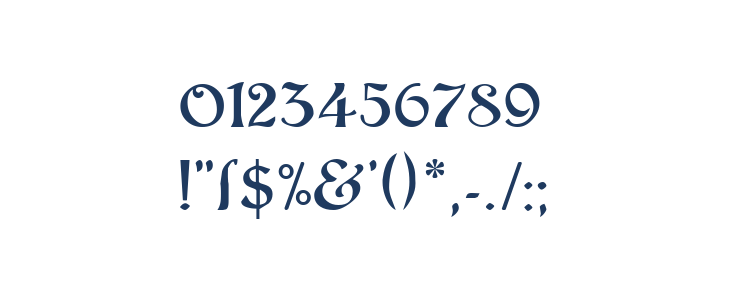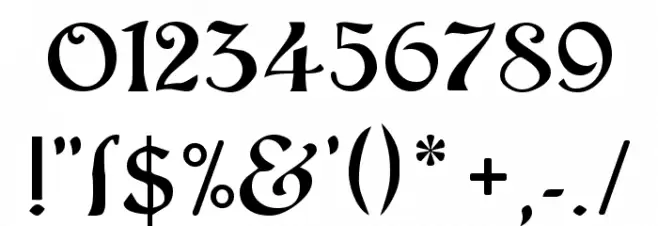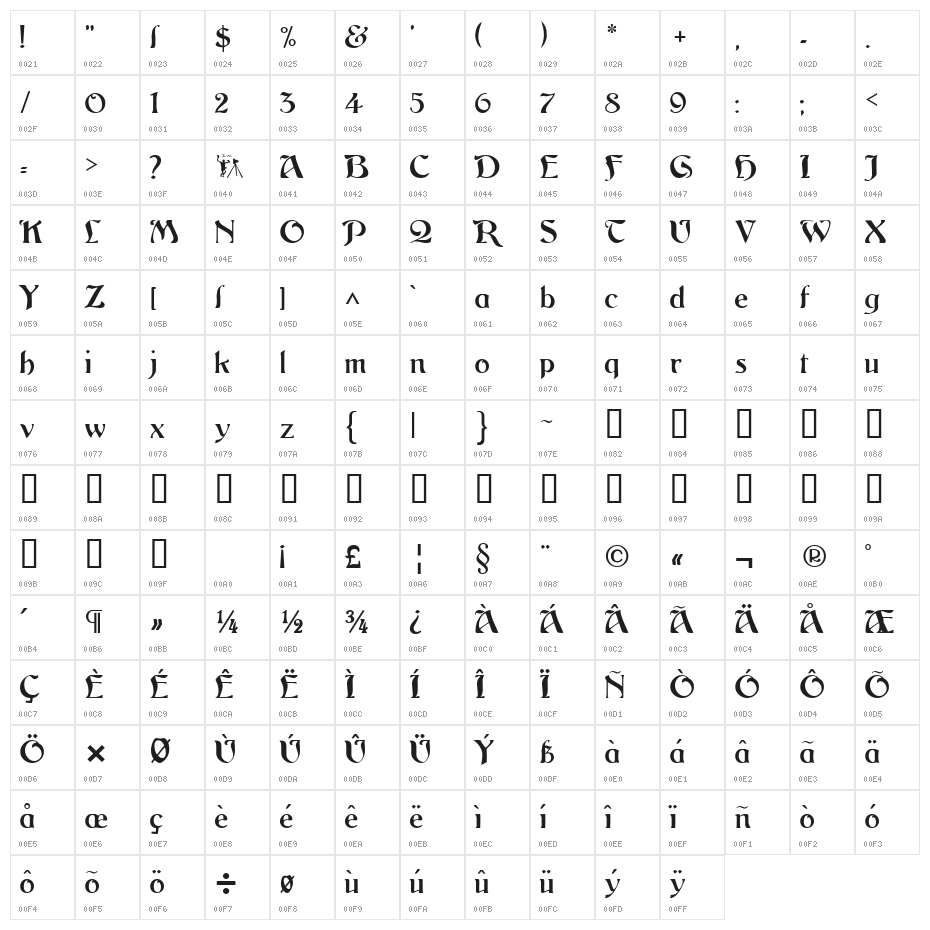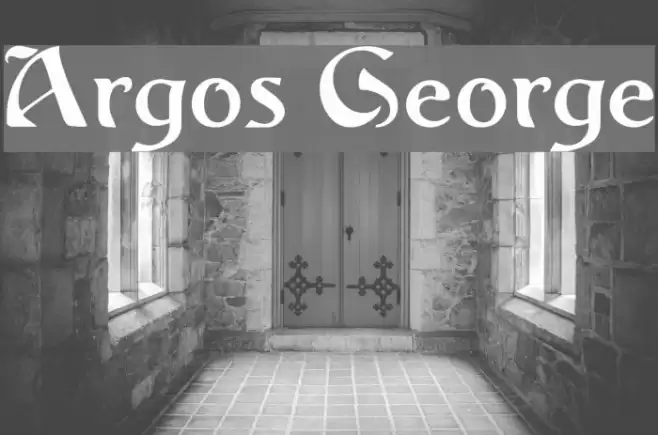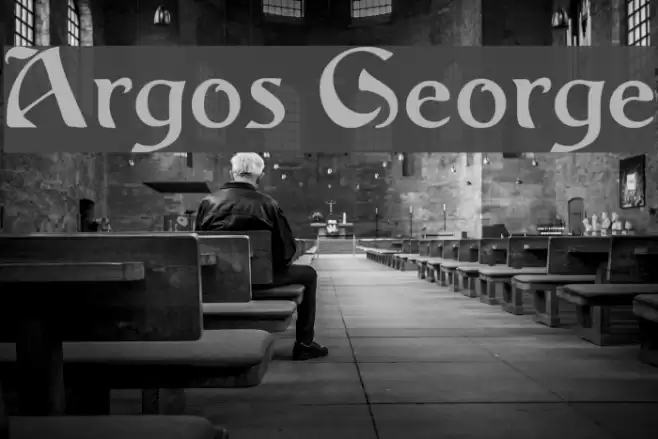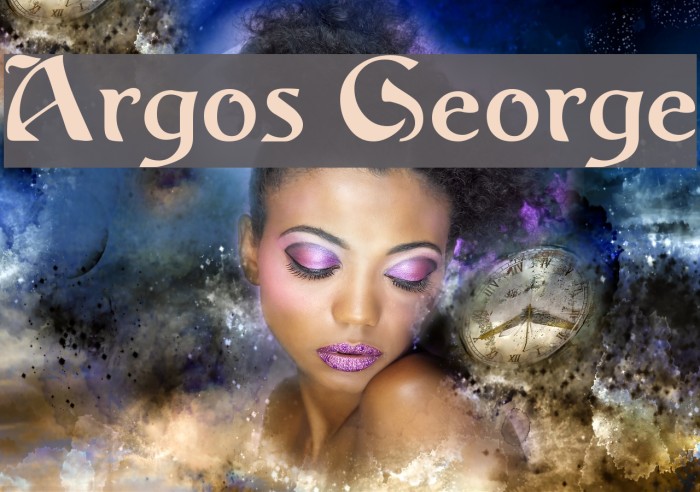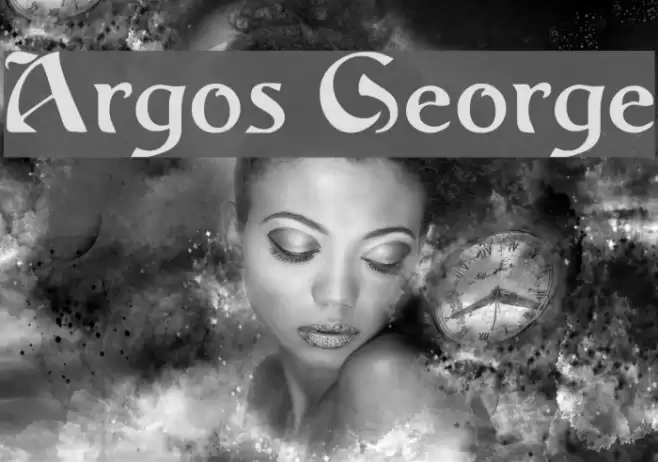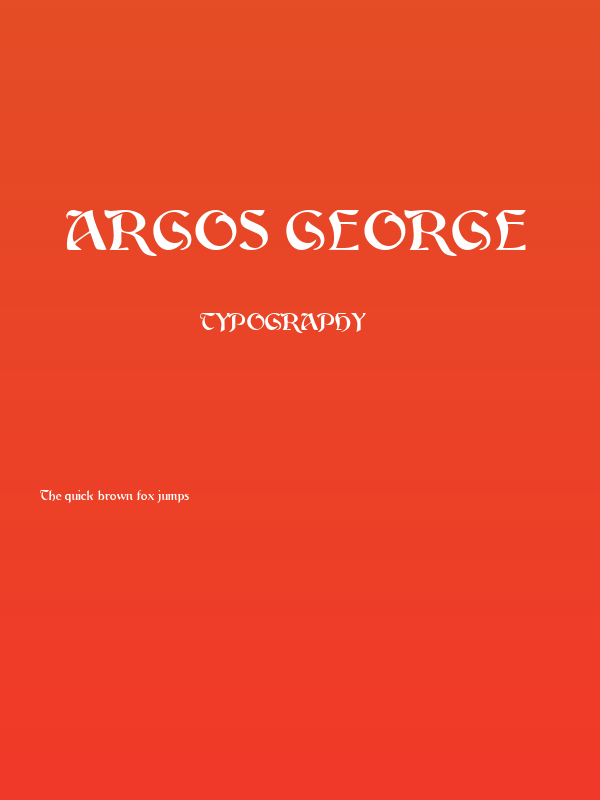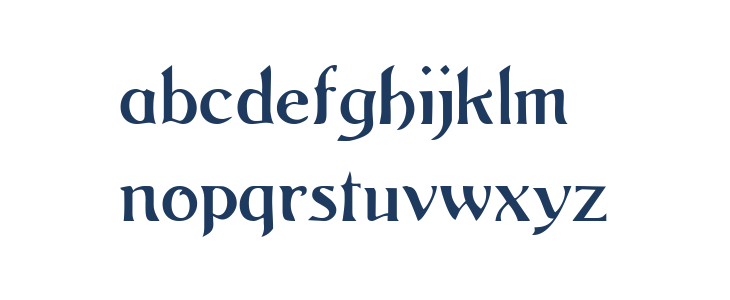
Argos George Font
Argos George Description
This font features a bold and dramatic style with sharp, angular serifs and a distinct medieval flair. The uppercase letters are particularly striking, with a strong presence and unique character shapes that evoke a sense of history and tradition. The lowercase letters maintain this theme, offering a cohesive look that pairs well with the uppercase. Numbers and special characters follow the same stylistic cues, ensuring a consistent appearance across all text. The overall design is reminiscent of Gothic or Blackletter styles, making it ideal for projects that require a touch of elegance and historical depth.
| Proposed Projects | Ideal for historical-themed designs, book covers, posters, and branding that requires a classic and dramatic touch. |